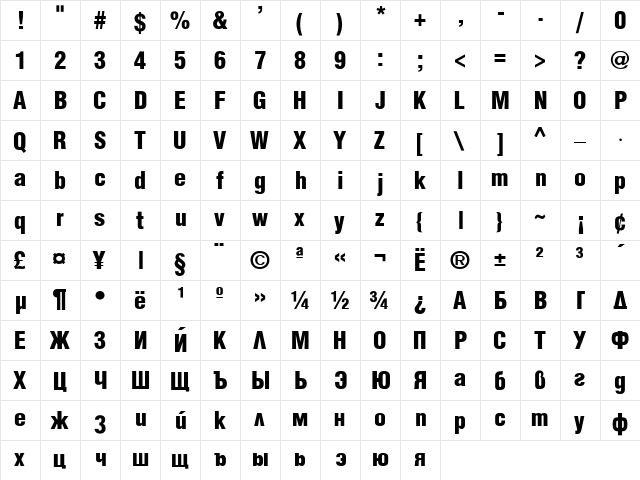
Apric B Black
Design Context for Apric B Typeface
Apric B is a composed and adaptable typeface that performs quietly and consistently across a wide range of design contexts.